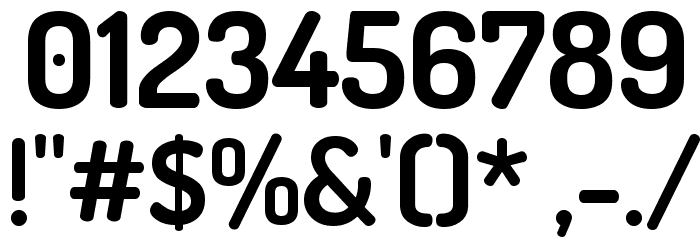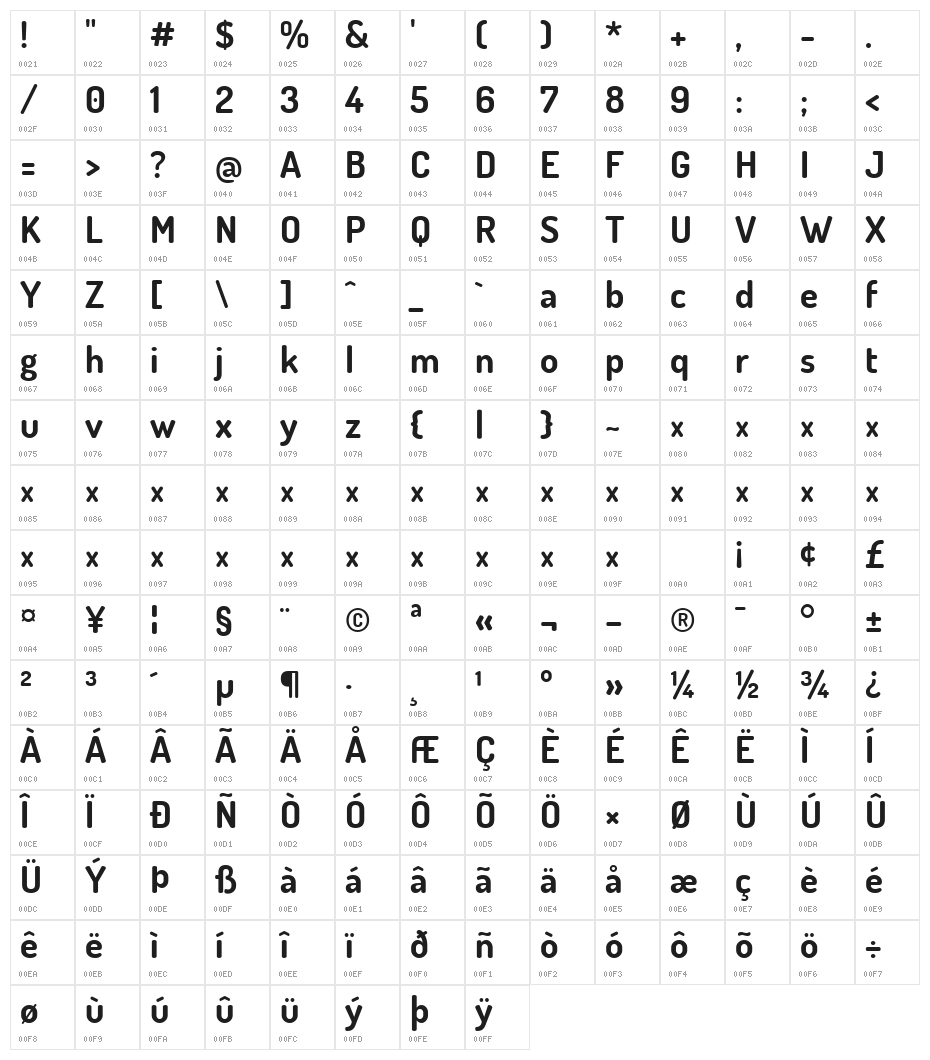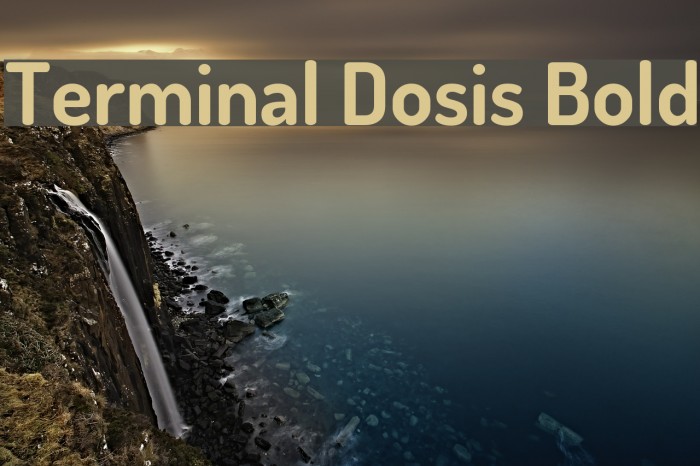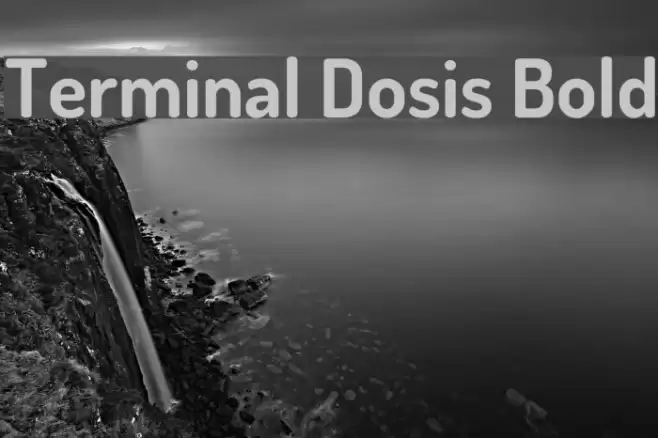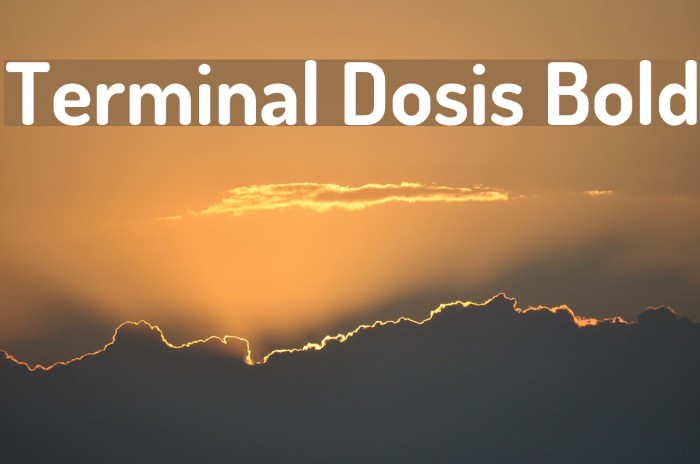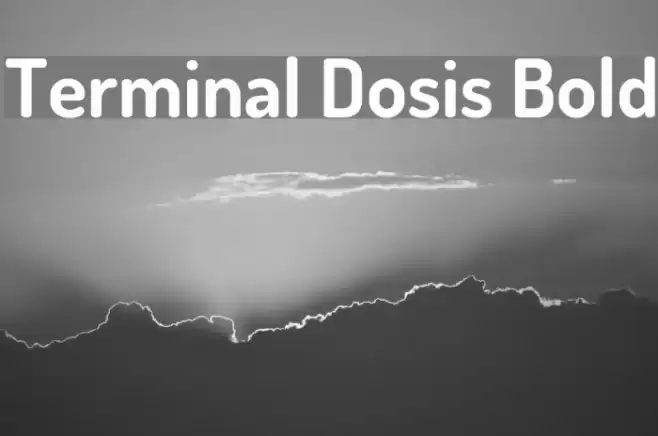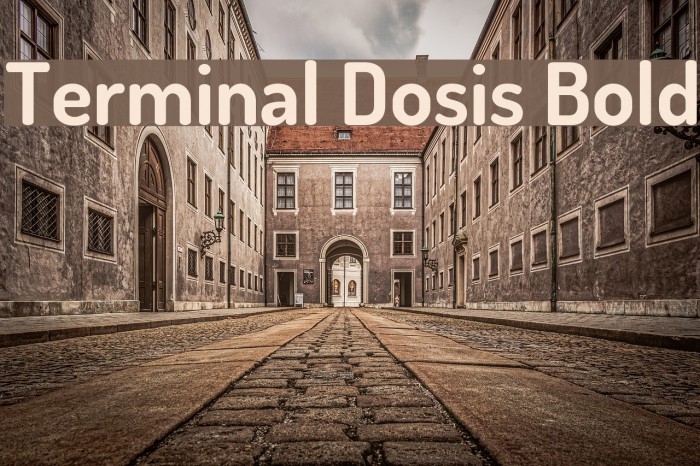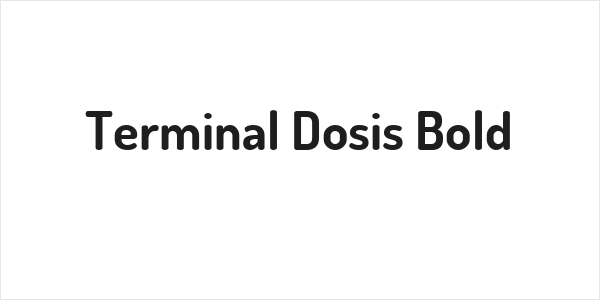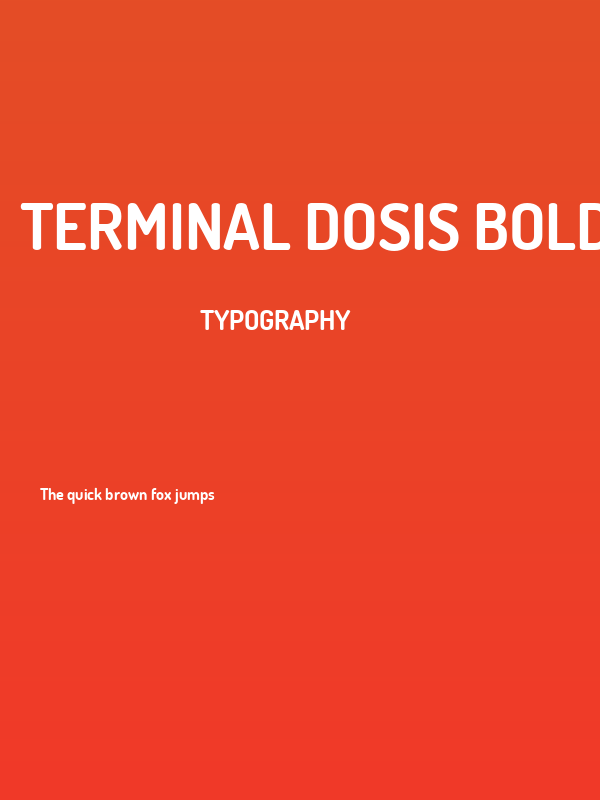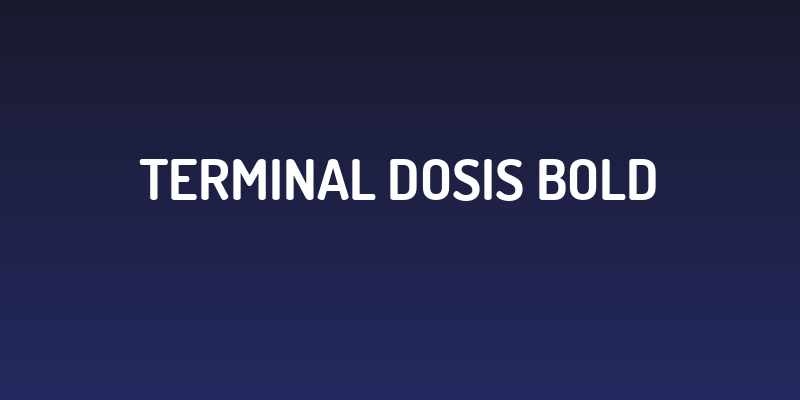
Terminal Dosis Bold Font
Terminal Dosis Bold Description
This font features a clean, rounded sans-serif design with a modern and friendly appearance. The characters are bold and well-defined, offering excellent readability. The rounded edges give it a soft, approachable feel, making it suitable for a variety of applications. The uniform stroke width and consistent character height contribute to its balanced and harmonious look. The numerals and special characters are designed with the same rounded and bold characteristics, ensuring consistency across all elements.
| Use Case | Headlines, Logos, Digital Interfaces |
| Proposed Projects | Ideal for branding, headlines, posters, and digital interfaces where a modern and approachable style is desired. |